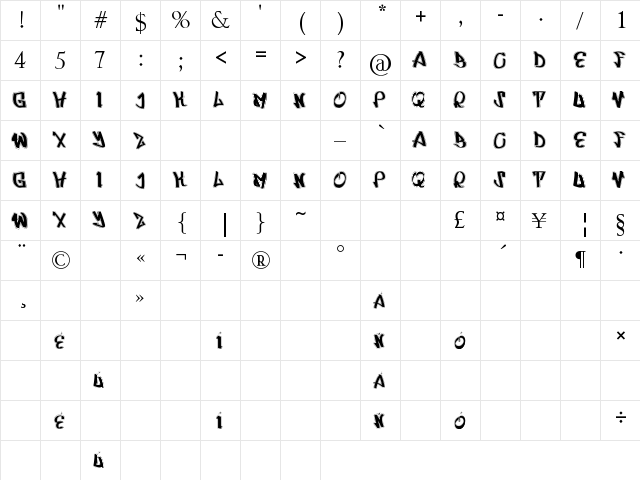
UrbRapper Regular
Design Context for UrbRapper Typeface
UrbRapper is a composed and adaptable typeface that performs quietly and consistently across a wide range of design contexts.